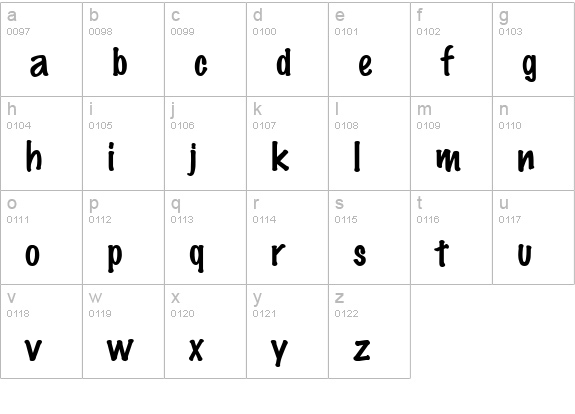
QTMagicMarker Regular Font Details
QTMagicMarker Regular is the standard, neutral variant in the QTMagicMarker typeface family \xE2\x80\x94 well suited to general body text, paragraphs, and standard typographic work.
QTMagicMarker Regular font is a delightful and versatile typeface that effortlessly captures the essence of hand-drawn artwork. With its playful and whimsical strokes, this font adds a touch of creativity and charm to any project. Whether you're designing a children's book, creating eye-catching logos, or crafting captivating social media posts, QTMagicMarker Regular font is sure to make your designs stand out. What sets QTMagicMarker Regular font apart is its ability to evoke a sense of handmade authenticity. Each letter is carefully crafted to mimic the imperfect yet endearing look of real brushstrokes. The result is a font that exudes warmth and personality, making it ideal for projects that require a personal touch. One of the best features of QTMagicMarker Regular font is that it is freely available to download at FontsMarket.com. This means that you can access this amazing font without having to spend a single penny. Now, you can elevate your designs and add a touch of magic without breaking the bank. In addition to its free availability, QTMagicMarker Regular font also offers a wide range of glyphs and ligatures. This allows you to experiment and create unique combinations, making each design truly one-of-a-kind. Whether you're a professional designer or a beginner, this font provides endless possibilities for creative expression. So, why settle for ordinary when you can infuse your designs with the enchanting allure of QTMagicMarker Regular font? Download it for free at FontsMarket.com and let your imagination run wild. Whether you're designing for print or digital platforms, this font will add a touch of whimsy and captivate your audience like never before.